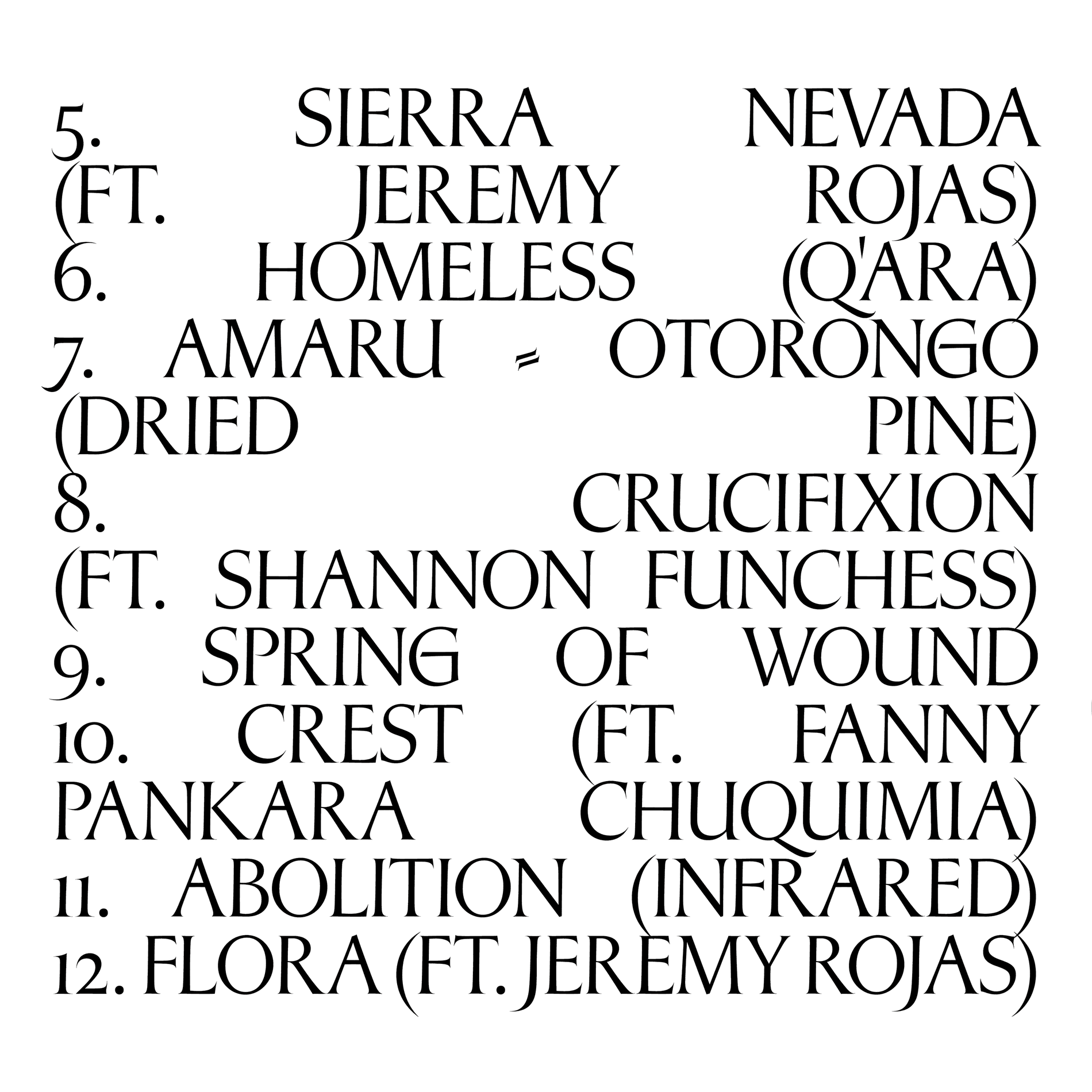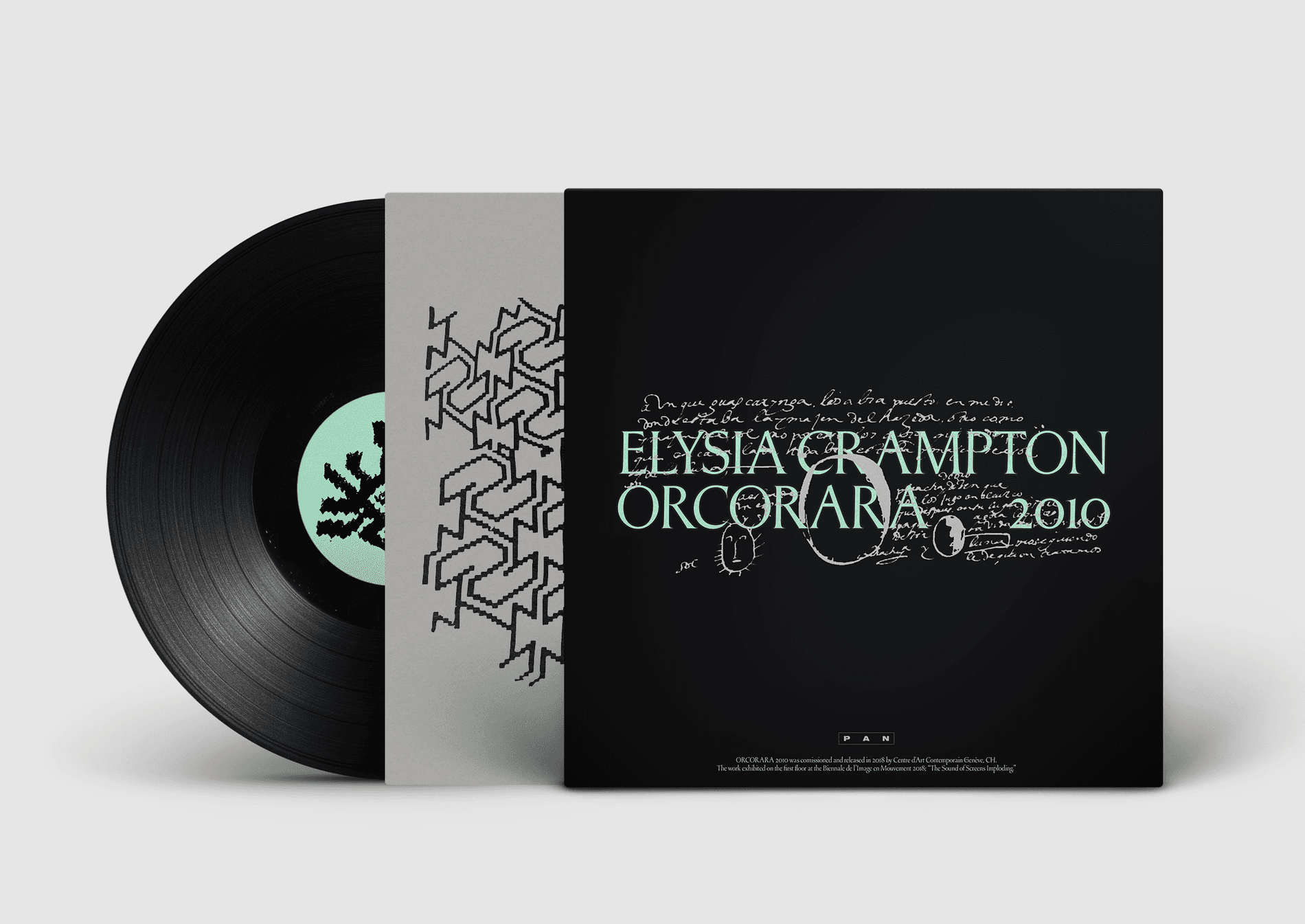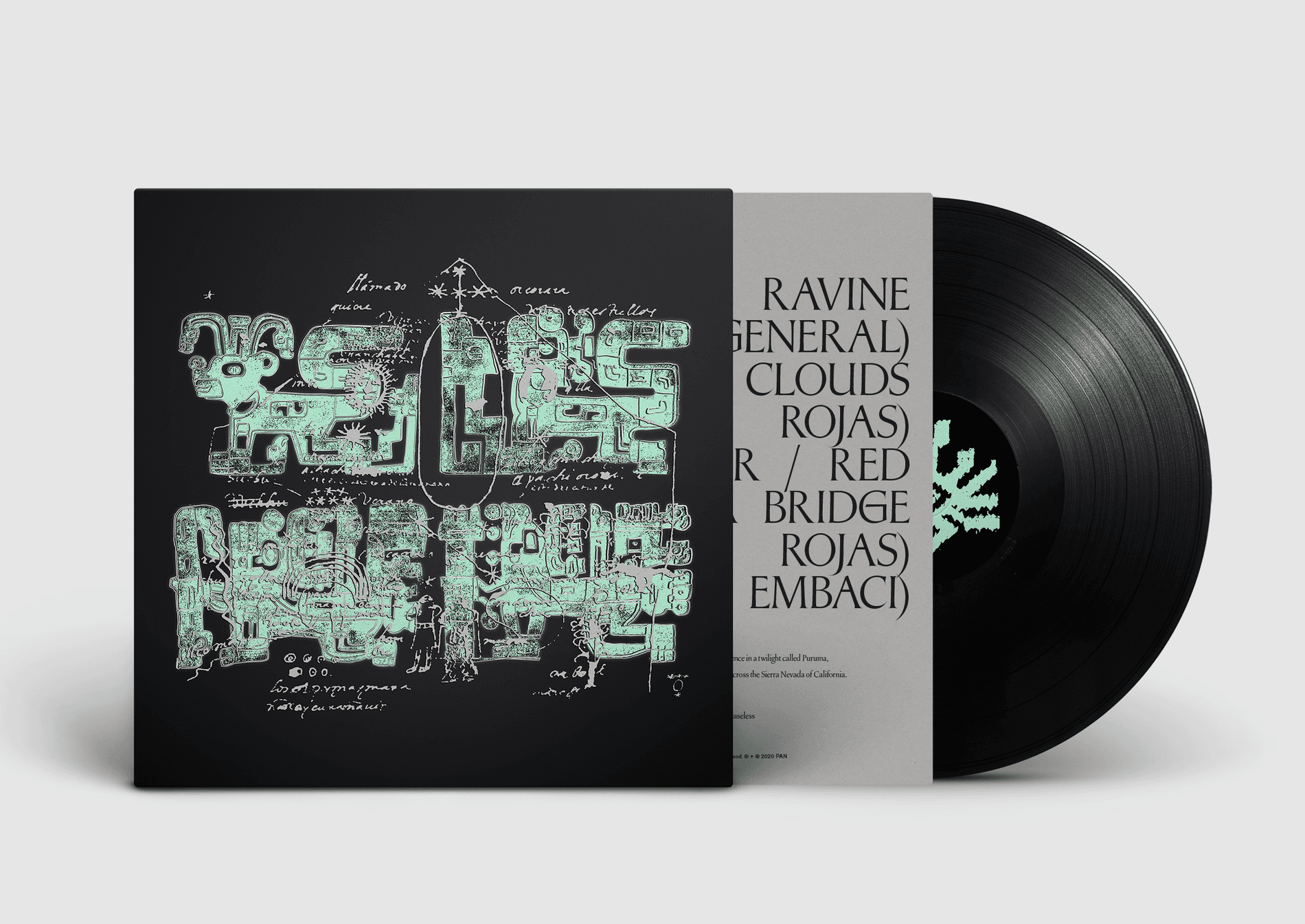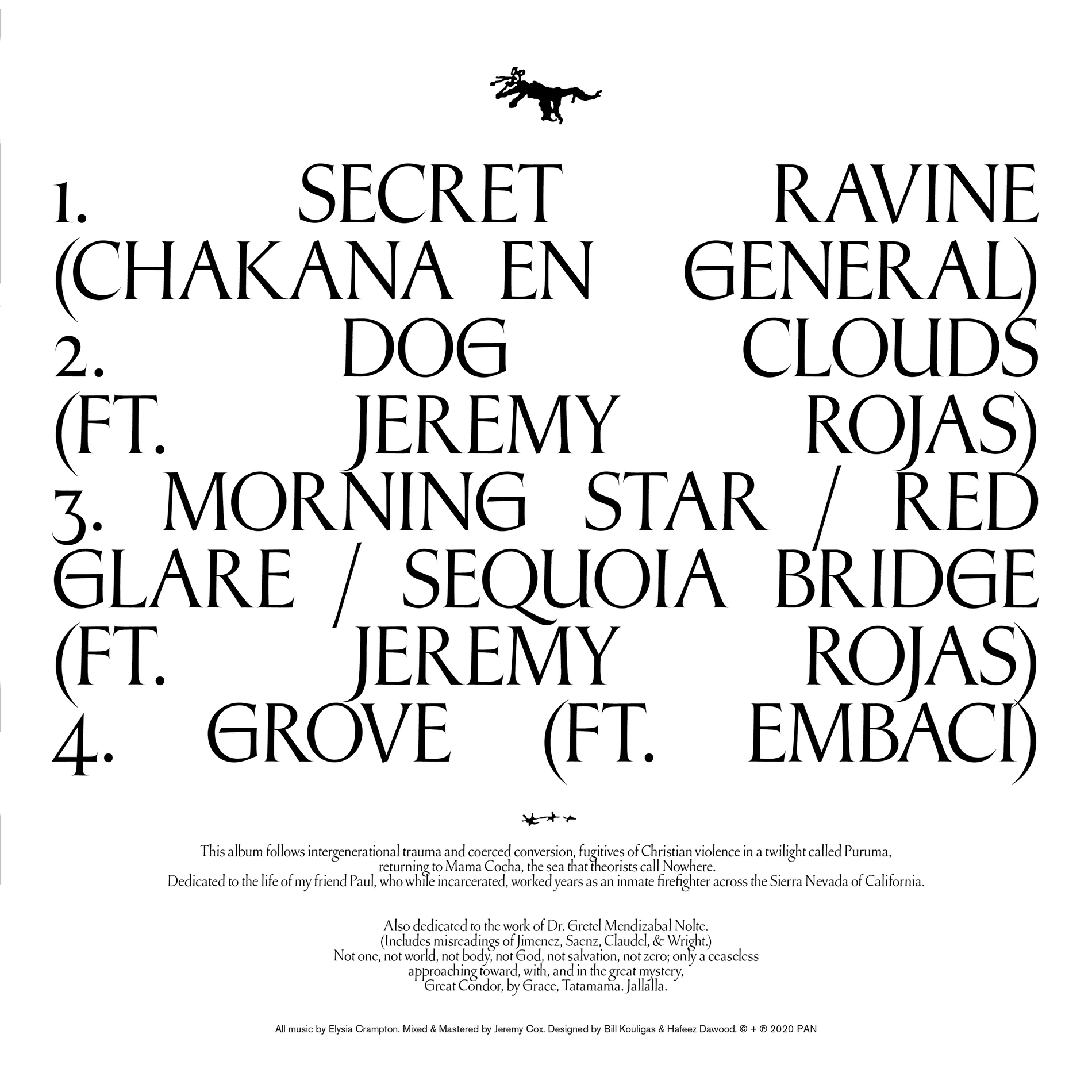
Elysia Crampton is an Amerindian Aymara electronic musician, producer, poet and composer. Her new album titled ORCORARA 2010 released with Berlin record label PAN is a moving compilation that follows intergenerational trauma, fugitives of Christian violence in a twilight called Puruma, and returning to Mama Cocha, the sea that theorists call Nowhere. The album cover uses Greenstone, a typeface in progress by Connor Davenport for Sharp Type. We got a chance to hear from Hafeez Dawood, who collaborated with Bill Kouligas, to design the album.
“ORCORARA 2010 is a deeply emotional, raw and sentimental piece of work. There is a sense of mystery, of urgency and an otherworldly quality to the record. It simultaneously maintains distinct references to Elysia’s grounded cultural, spiritual, and personal history which turns the otherworldliness into something very tangible. Greenstone helped communicate these traits visually, and it worked as a synergistic contribution to the artwork, instead of just as a decorative addition,” Dawood said.
A keyword for the artwork was “artefact.” Greenstone, inspired by a mix of stone carvings and lettering by Oscar Ogg, naturally embeds a sense of history and memory into the letterforms. Dawood described how he loves the Americana that is embedded within Greenstone’s identity, with the forms feeling classical and romantic. Additionally, it reminds him of being in Western desert, walking alongside hundreds of stones alongside railroads and conjuring up feelings of discovery and wonder.
Typeface: Greenstone, release TBD